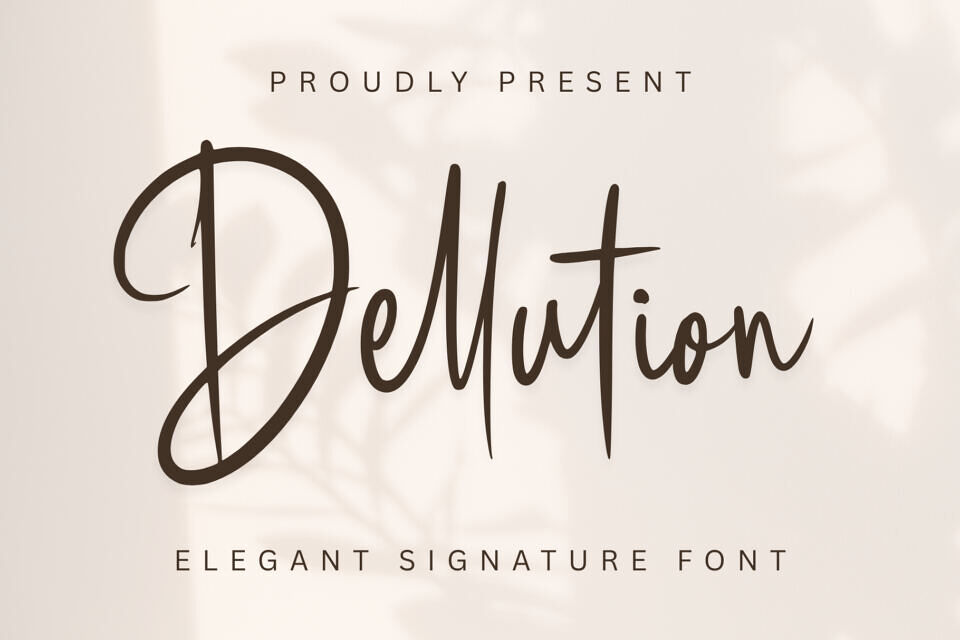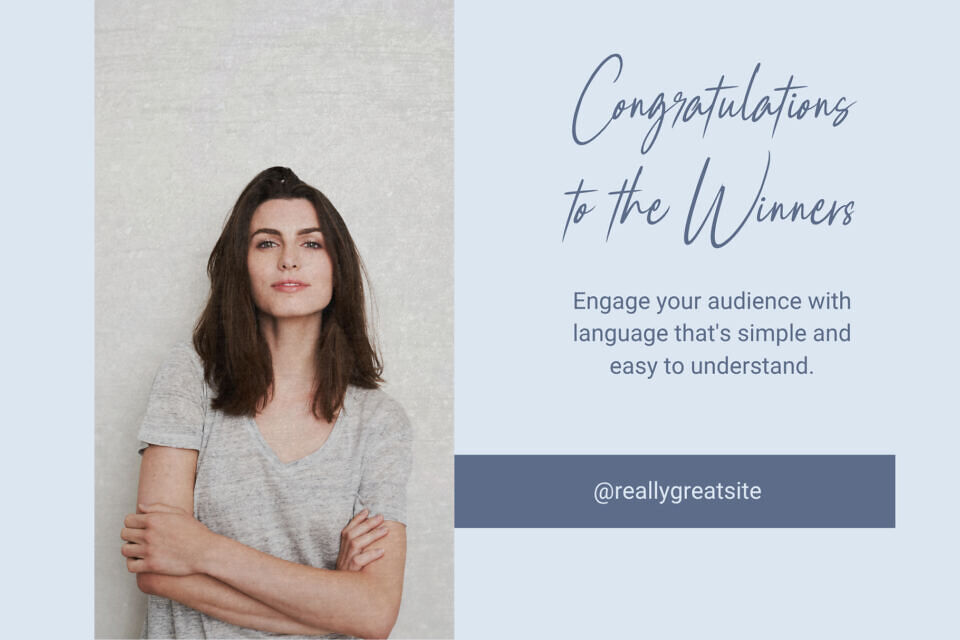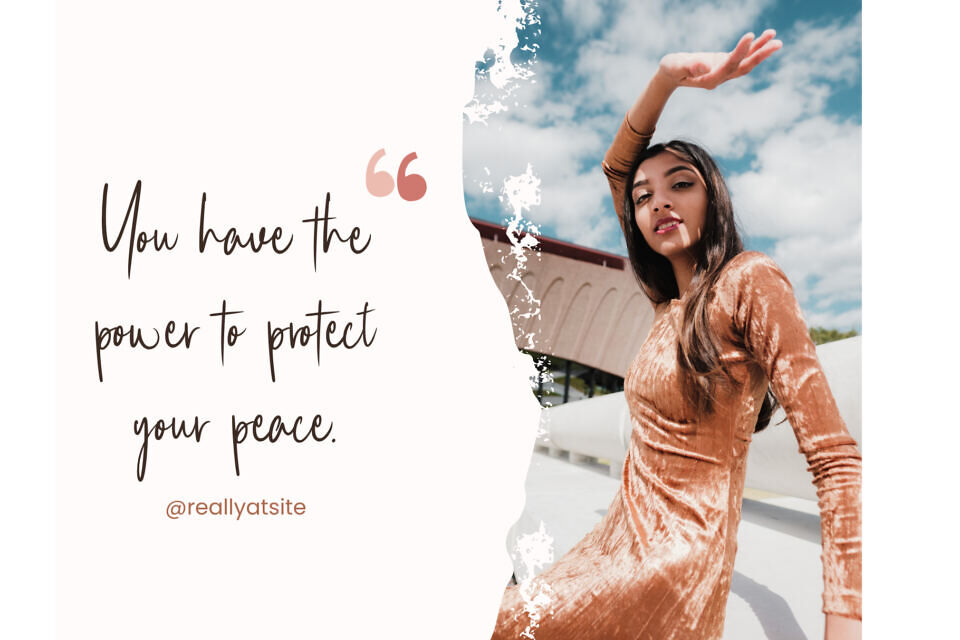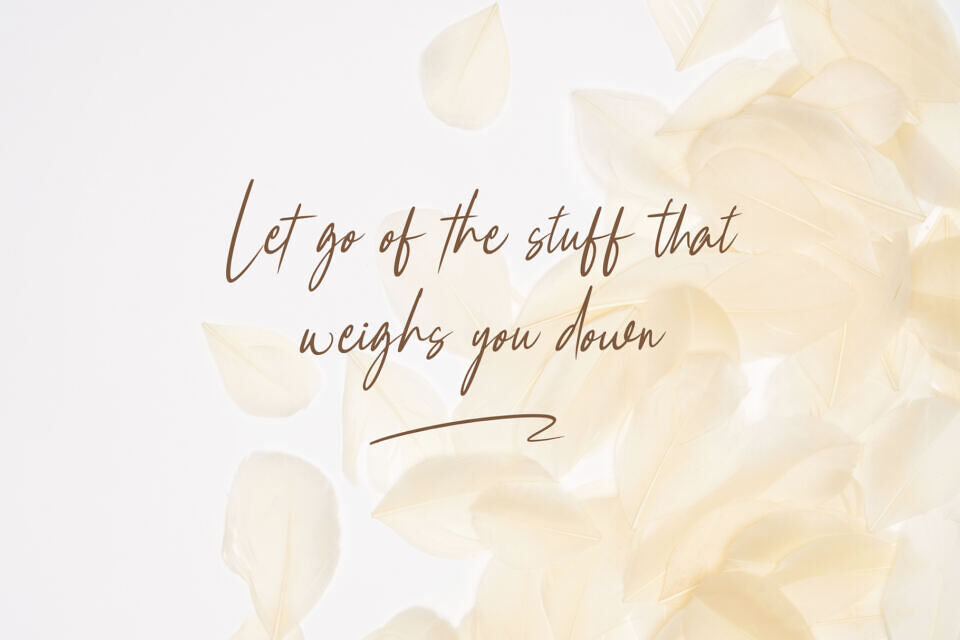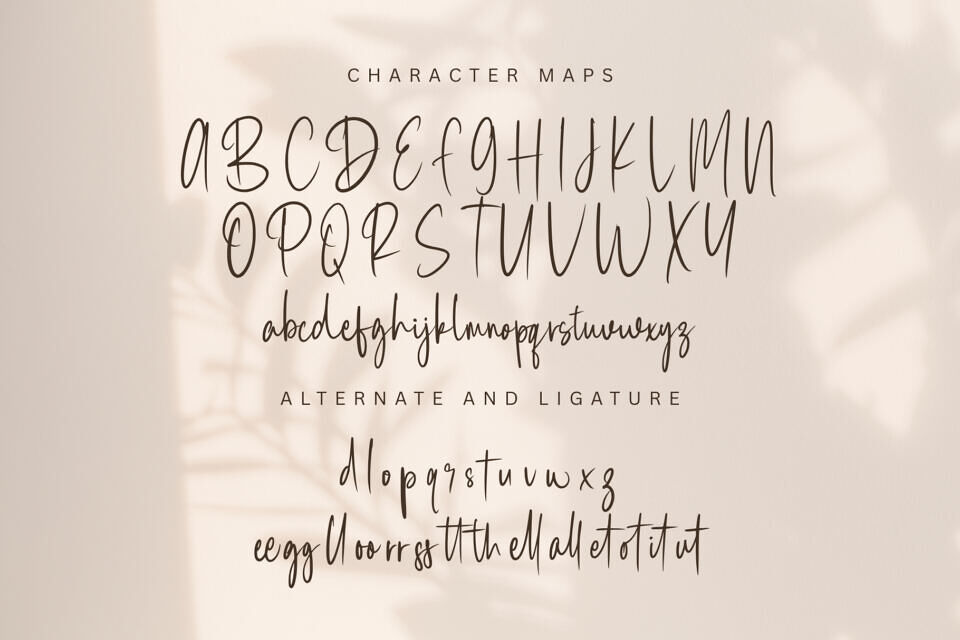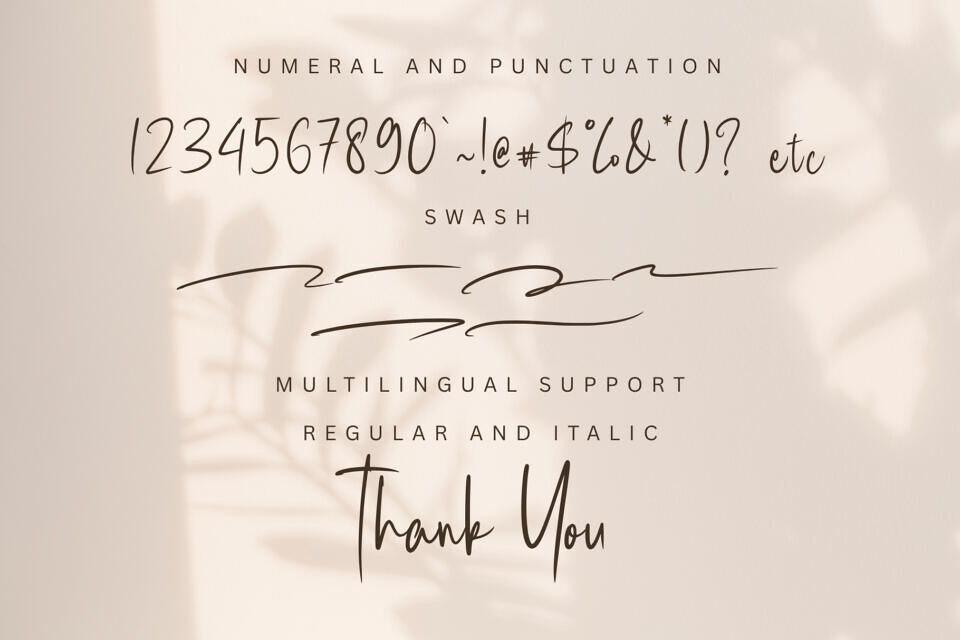
Dellution is a modern and elegant signature font that brings a touch of class and sophistication to any design. With its smooth strokes and natural handwritten style, Dellution is perfect for branding, logos, invitations, product packaging, quotes, social media posts, and many other creative projects.
Designed to look effortless yet refined, this font adds a personal and stylish feel to your work. Whether you’re creating a minimalist logo or a luxurious wedding invitation, Dellution will make your design stand out beautifully.